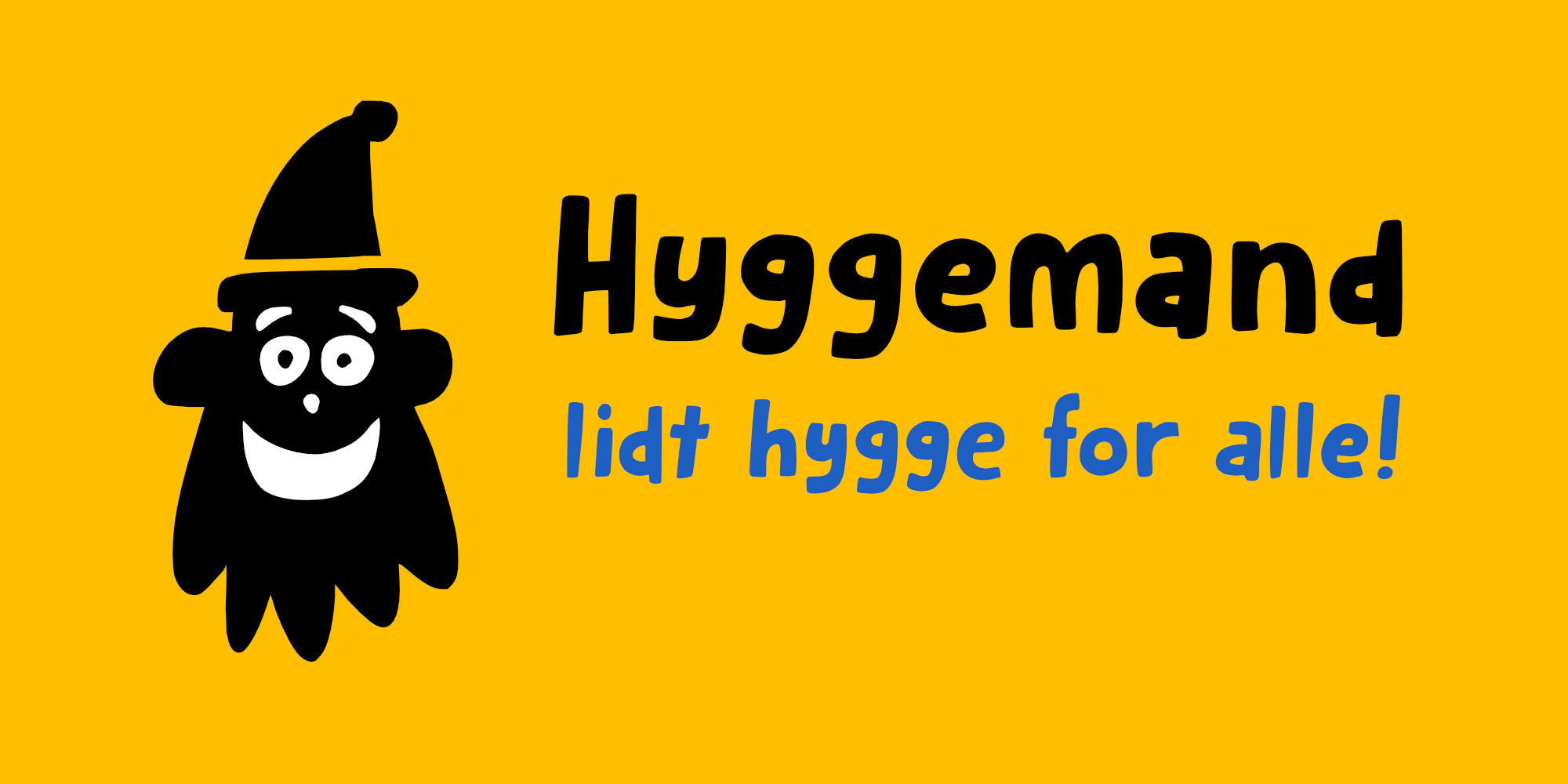
Hyggemand is not a real word: it is a combination of Hygge (meaning ‘fun’ or ‘coziness’ in Danish) and Mand (which means man in Danish). Combined it means something like ‘Nice Man’.
Hyggemand is a happy kids font that comes with extensive language support and a set of alternates for the lower case glyphs. If you want the cute Huggeman face, you will find it as a stylistic alternate for the asterisk.